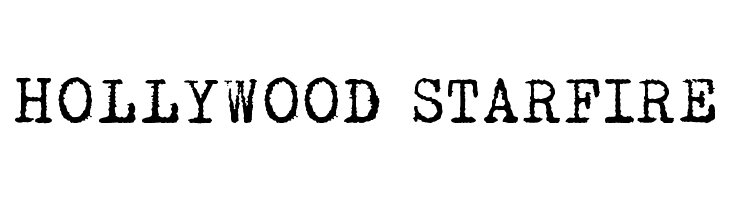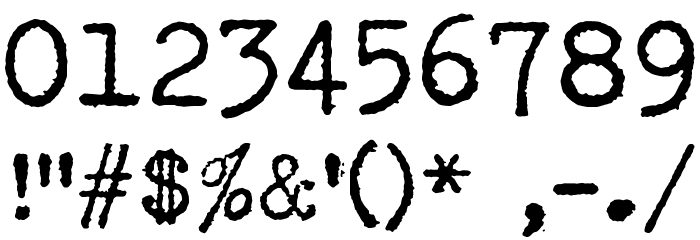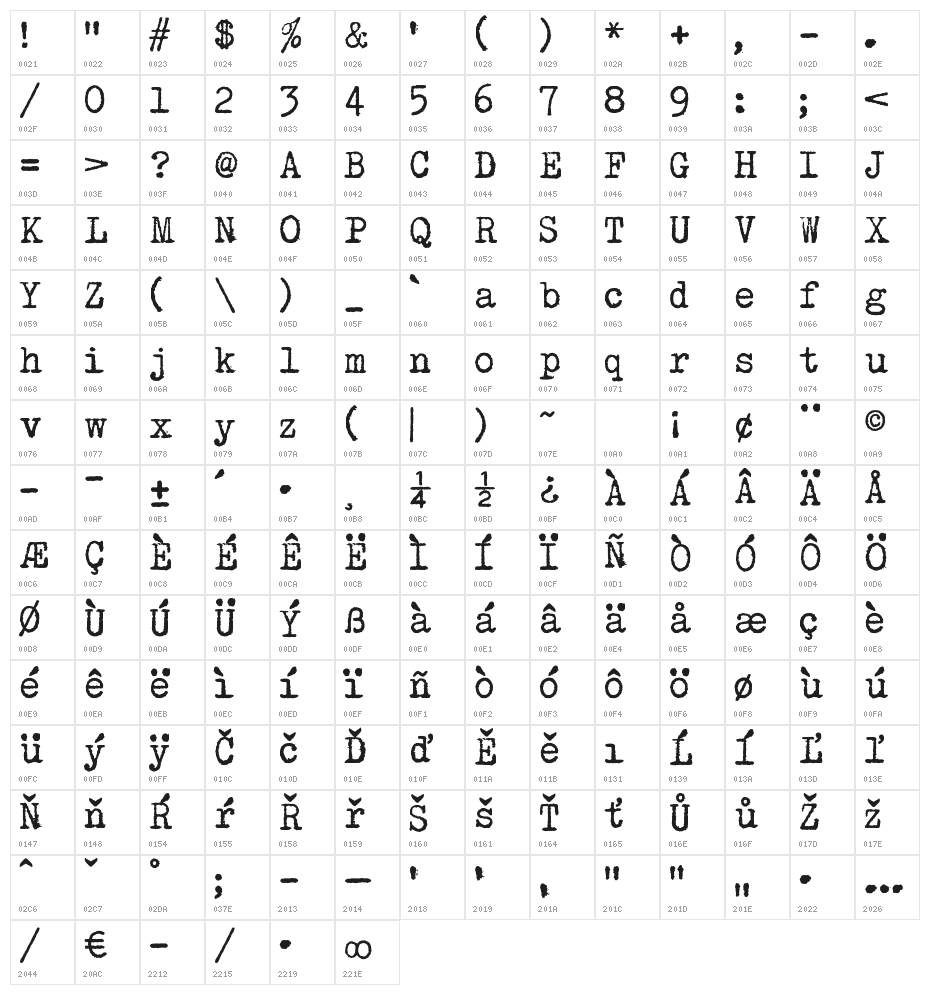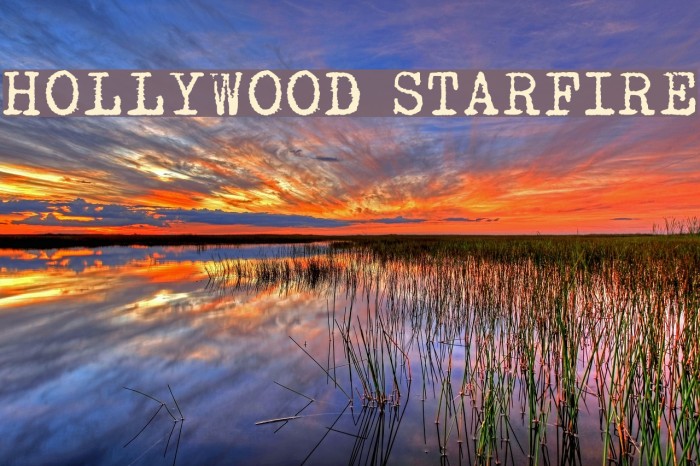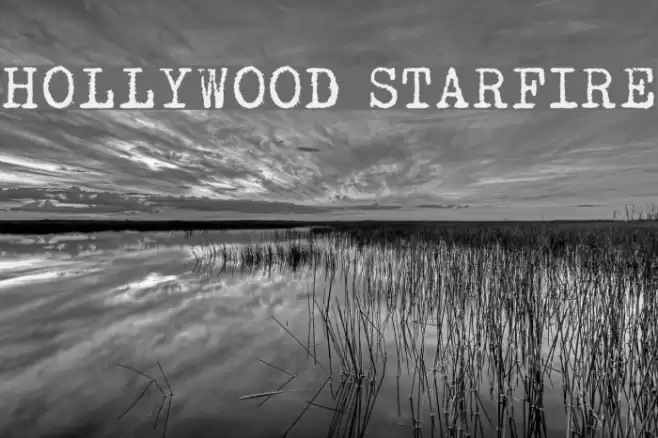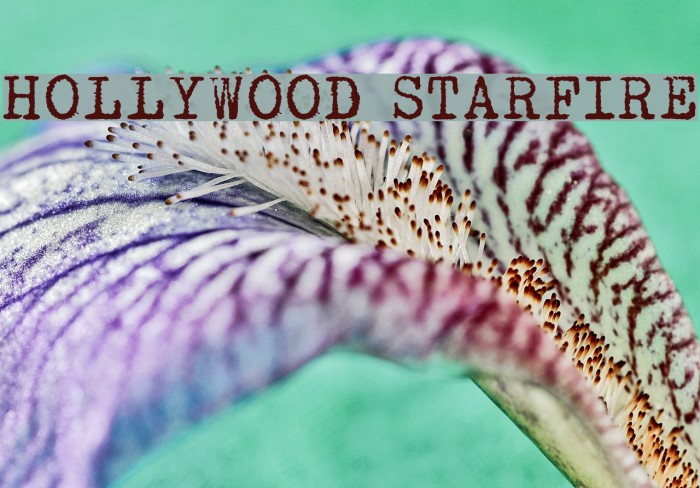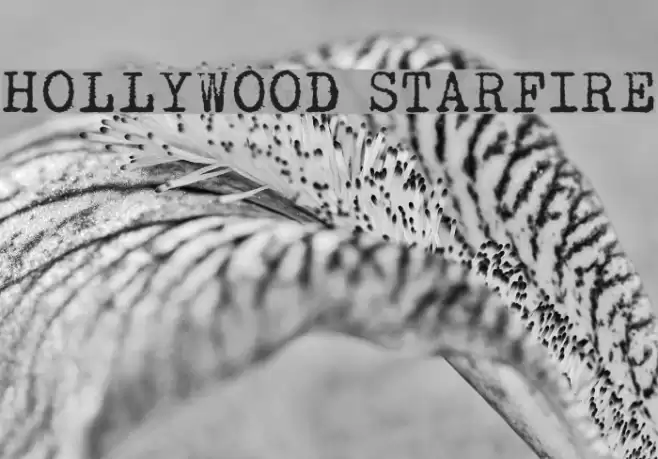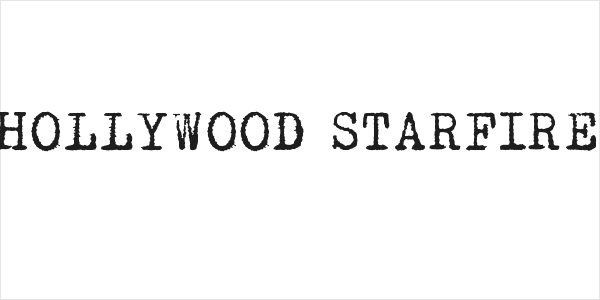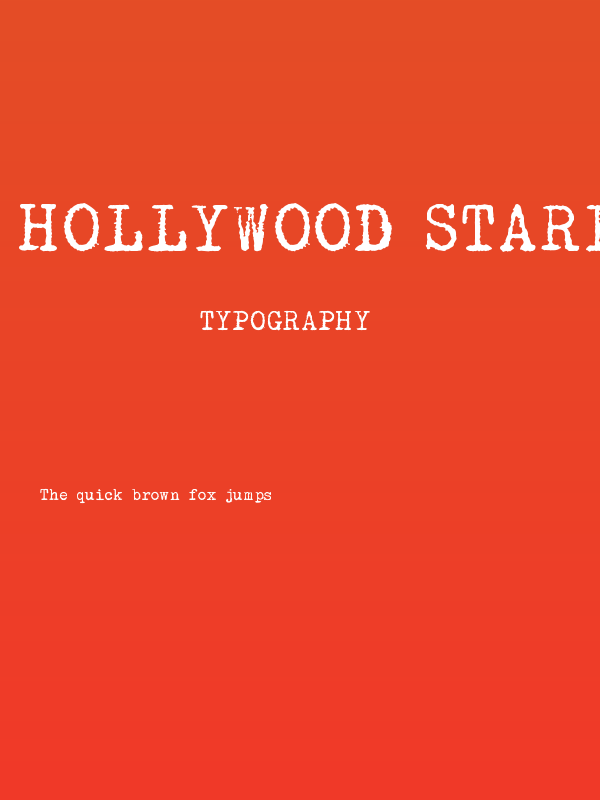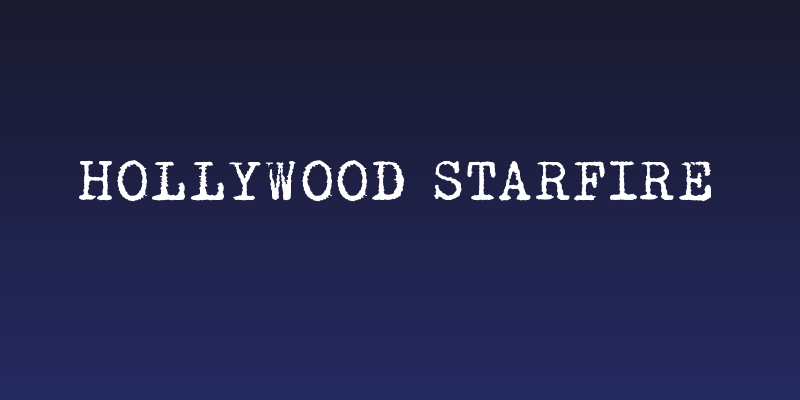
HOLLYWOOD STARFIRE Font
HOLLYWOOD STARFIRE Description
This font exhibits a vintage typewriter style with a slightly distressed appearance, giving it a nostalgic and authentic feel. The characters are bold and have a uniform width, typical of monospaced fonts, which adds to its retro charm. The uppercase and lowercase letters maintain a consistent design, with rounded edges and subtle imperfections that mimic the look of ink on paper. The numerals and special characters follow the same aesthetic, ensuring a cohesive look across all text. This font is ideal for projects that aim to evoke a sense of history or nostalgia, such as retro-themed designs, vintage posters, or creative writing projects that require a typewriter effect.
Overall StyleVintage
Use CaseHeadlines, Logos, Decorative text
Proposed ProjectsIdeal for retro-themed designs, vintage posters, or creative writing projects requiring a typewriter effect.